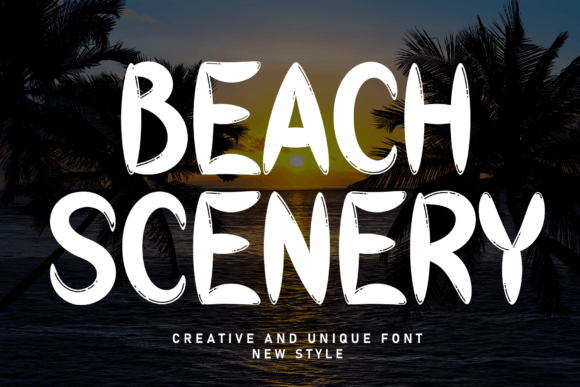
**Step into a World of Coastal Charm with Beach Scenery Font**
Immerse yourself in the tranquil ambiance of Beach Scenery Font, a display font that evokes the carefree spirit of sun-drenched shores and crashing waves. Its whimsical design and unwavering legibility make it the perfect choice for a wide range of creative endeavors.
Crafted by the talented hands of andikastudio, Beach Scenery Font exudes a captivating friendliness that draws your attention and lingers in your memory. Each character dances gracefully on the page, carrying with it the essence of seaside tranquility.
**Unleash Your Creativity with Endless Possibilities**
Whether you're embarking on whimsical craft projects, designing captivating digital masterpieces, delivering unforgettable presentations, or creating heartfelt greeting cards, Beach Scenery Font is your steadfast companion. Its versatility knows no bounds, making it an indispensable tool for any creative soul.
**Become the Master of Enticing Headlines**
Step into the spotlight with Beach Scenery Font, the undisputed champion of captivating headlines. Its bold and expressive nature commands attention, inviting readers to delve into your words and immerse themselves in your creations.
**Embrace the Magic of Childlike Wonder**
Beach Scenery Font possesses an inherent charm that evokes the innocence and joy of childhood. It transports you to a world where imagination reigns supreme, where every stroke of the pen carries a hint of youthful wonder.
**Experience the Tranquility of a Coastal Escape**
With every use of Beach Scenery Font, you'll find yourself transported to the serene shores of a coastal paradise. Its soothing curves and playful demeanor create a welcoming ambiance that invites you to relax, unwind, and let your creativity flow freely.
**Indulge in the Perfect Font for Every Occasion**
No matter the task at hand, Beach Scenery Font has the power to elevate your creations to new heights. From playful invitations to bold marketing campaigns, from whimsical posters to heartfelt letters, this font seamlessly adapts to your diverse needs.
**Unlock Your Creative Potential with Beach Scenery Font**
Join the ranks of discerning creatives who have discovered the transformative power of Beach Scenery Font. Embrace its coastal charm, unleash your imagination, and create masterpieces that will leave a lasting impression.